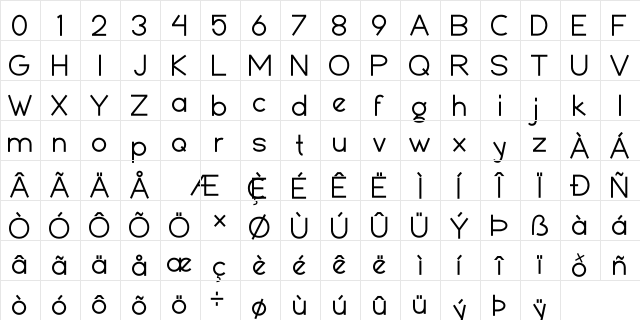
Deuglas Regular
| Designer | Sealoung Studio+Saiful Anwar |
Design Context for Deuglas Typeface
Deuglas takes a measured approach to typography — its balanced proportions and neutral character make it a reliable workhorse for both digital and print work.